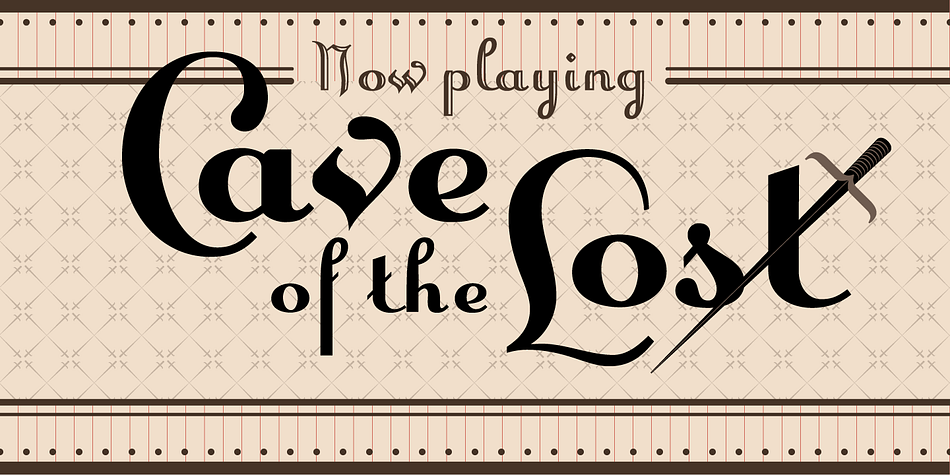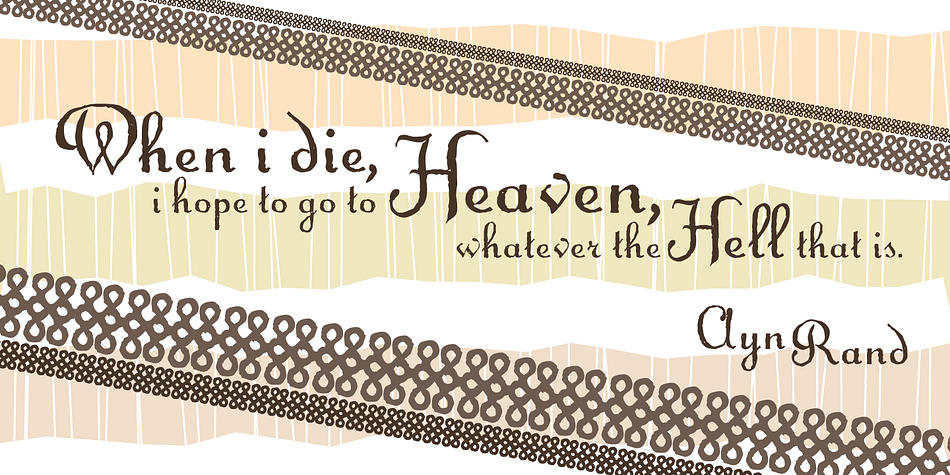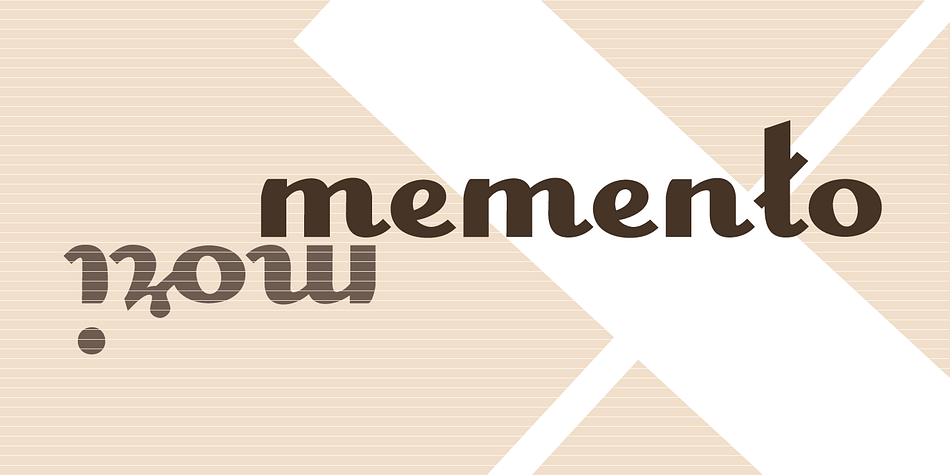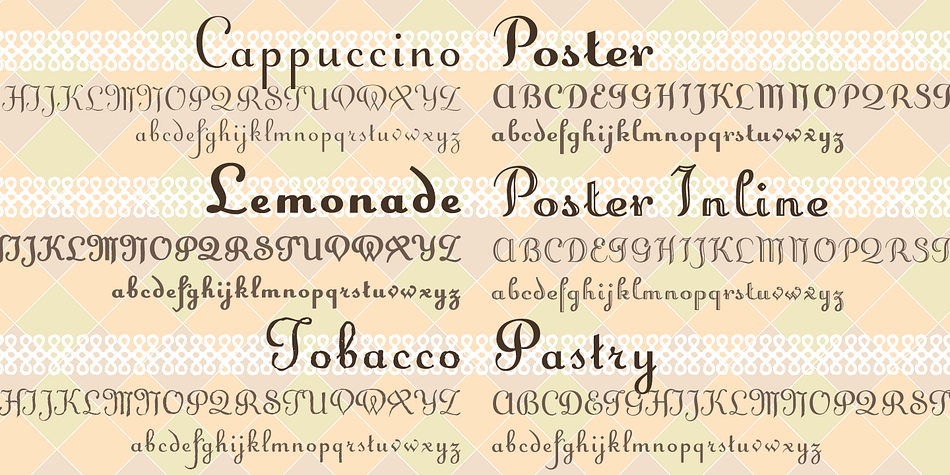
Caffe is a brush script font family. This typeface has six styles and was published by International House of Fonts.
Caffe was originally designed for the Artz Gallery Cafe in Budapest Hungary. The design is a contemporary handwriting style adapted from examples in lettering exercise books. It has been redrawn and expanded into six styles. The four weights were created by drawing the style using different mediums: Cappuccino in pen, Pastry in felt-tip, Lemonade in brush and Tobacco, the original, in pencil. Poster and Poster Inline are well suited for display purposes and round out the family. This font family is perfect for bistro menus or other European-flavored poster & print design.